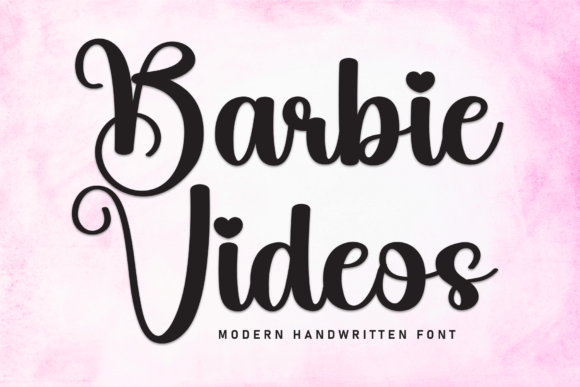
Unleash Your Creativity with Barbie Videos Font
Do you remember the first time you fell in love with a font? Maybe it was a quirky script that made your designs stand out or a clean sans-serif that gave your text a modern feel. For me, it’s the whimsical touch of a handwritten font that always gets my creative juices flowing. Recently, I stumbled upon the delightful Barbie Videos Font, and I just can’t get enough of it!
This sweet and friendly font is perfect for adding a touch of fun and personality to your designs. Whether you’re creating wedding invitations, cards, or any other project that needs a playful twist, Barbie Videos Font is sure to bring a smile to your face. As a designer, you know how valuable it is to have a versatile font that can elevate your work and make it truly special.
Key Features of Barbie Videos Font
- Font Family: Barbie Videos Font is a unique, hand-drawn font designed specifically for use in videos, animations, and digital media.
- Unique Characteristics: The font features a playful, whimsical style with bold lines and vibrant colors, making it perfect for creating eye-catching titles, logos, and graphics.
Designer Review: Barbie Videos Font
At first glance, the Barbie Videos Font seems like a playful and eye-catching choice for a project. ✨ The font is quite stylized and would likely appeal to a younger audience or those looking for a more feminine aesthetic. It’s also available in a range of weights and styles, which makes it a versatile option for various design needs.
Here are some key strengths of the font:
- Unique and attention-grabbing design ✨
- Available in multiple weights and styles
- Works well for headings and titles
- May be difficult to read in smaller sizes or at a distance ⚠️
- Not suitable for body text or large blocks of text
- May not be suitable for corporate or professional branding
Overall, I would say that the Barbie Videos Font is a fun and creative choice, but it may not be the best option for every project. It’s best suited for projects that require a playful, youthful vibe. With careful use and consideration of its limitations, it can be a great addition to a designer’s toolkit.
Barbie Videos Font Practical Application Guide
Tip: Use the Barbie Videos Font for eye-catching titles and headings to add a touch of whimsy to your designs.
Tip: Use the Barbie Videos Font for custom graphics and illustrations to add a playful touch.
Tip: Use the Barbie Videos Font for presentations and reports to add a touch of fun and personality.
The Barbie Videos Font is perfect for:
- Toy packaging and branding
- Playful social media graphics and posts
Remember to use the Barbie Videos Font sparingly to avoid overwhelming your design.